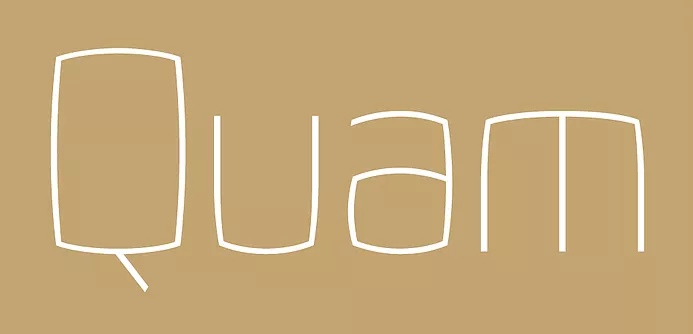
Quam Font
Quam Font is perfect for innovative startup branding, cutting-edge tech designs, futuristic poster layouts, digital interface typography, modern web applications, progressive logo designs, contemporary magazine headers, and forward-thinking corporate communications.
This exciting Quam Font energizes design projects with its distinctive contemporary character and innovative letterforms that push the boundaries of traditional typography while maintaining exceptional functionality. The font's progressive aesthetic and unique personality make it an outstanding choice for brands and designers who want to communicate innovation, creativity, and forward-thinking vision that resonates with modern audiences.
The Quam Font family includes multiple stylistic options such as Regular, Light, Medium, Bold, Extra Bold, and Condensed versions, providing designers with comprehensive flexibility for creating dynamic and visually compelling brand systems and typographic hierarchies.
The dynamic character of Quam Font makes it particularly effective for technology startups, creative agencies, digital platforms, and innovative companies that need to communicate originality, expertise, and progressive thinking. Its distinctive styling appeals to audiences who appreciate design innovation and contemporary visual culture in their brand experiences.
Design professionals choose Quam Font for its exceptional adaptability across digital and print applications while maintaining its unique personality and visual impact. The font performs excellently from small user interface elements to large-scale environmental graphics, ensuring consistent brand recognition and modern appeal throughout all touchpoints.
The versatile applications of Quam Font extend from intimate mobile applications to comprehensive brand identity systems, maintaining its innovative character across different scales and contexts. This adaptability makes it valuable for organizations requiring consistent contemporary expression across multiple platforms and communication channels.
Forward-thinking brands utilize Quam Font to differentiate themselves in competitive markets by projecting innovation, creativity, and design leadership. The typeface's contemporary sophistication helps establish market credibility while appealing to design-conscious consumers who value originality, quality, and progressive aesthetic sensibilities in their purchasing decisions.